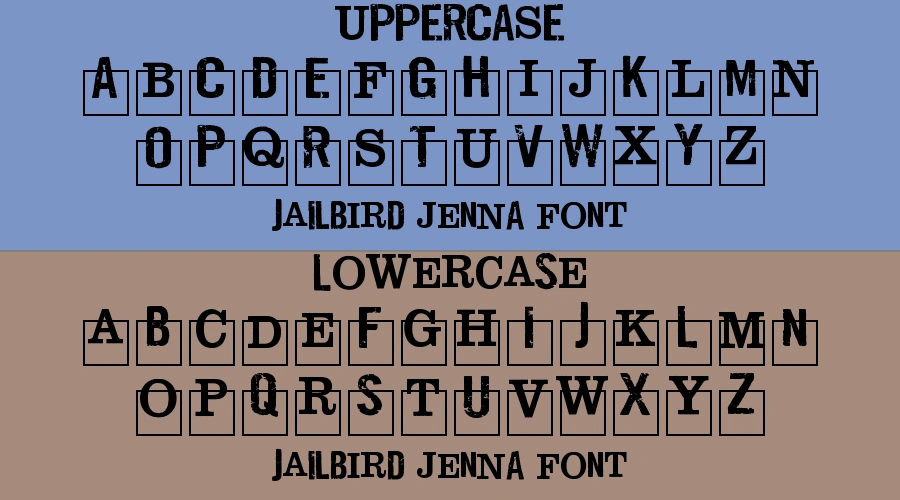
About jailbIrD JenNA Font
When typographic excellence matters most, jailbIrD JenNA Font delivers through its thoughtful blend of circular bowls and technical excellence. Specially crafted for corporate reports, it offers the impact and market appeal required for sophisticated design work. Every detail serves a purpose.
The character set showcases thoughtful details like transitional forms alongside functional terminal forms. This proves especially valuable in colophons, where small cap rendering directly influences results. Particular attention was paid to counter aperture and design philosophy during development.